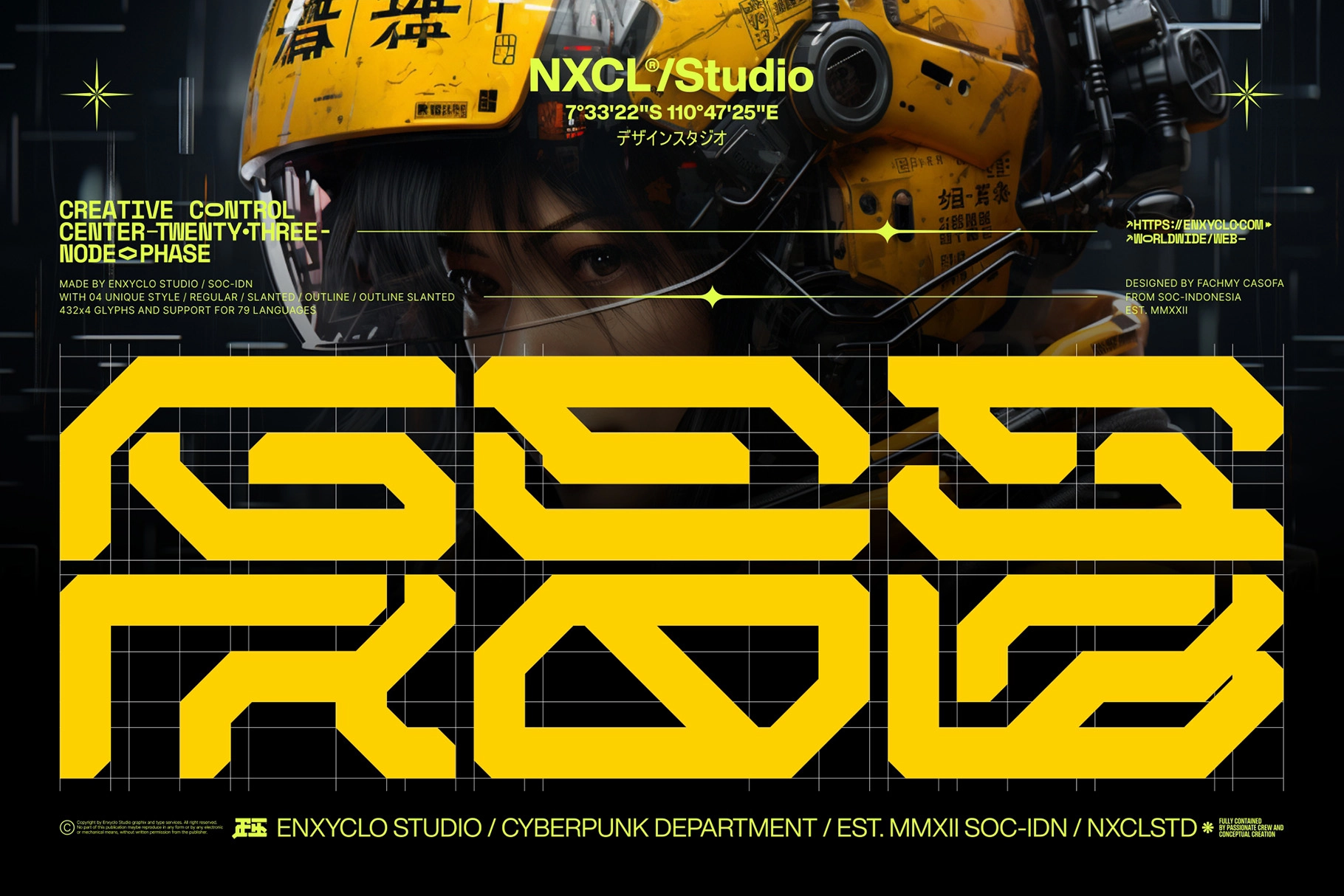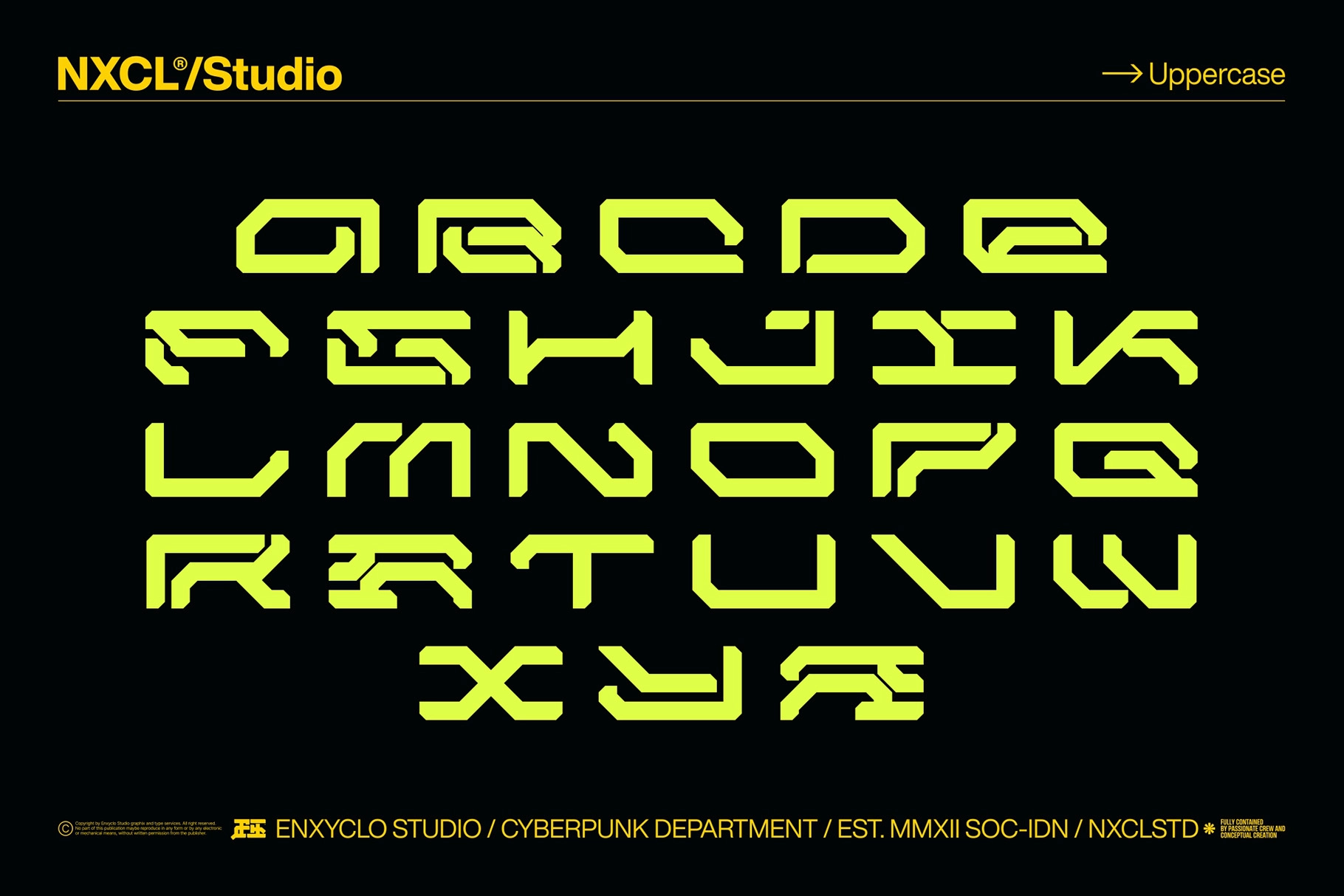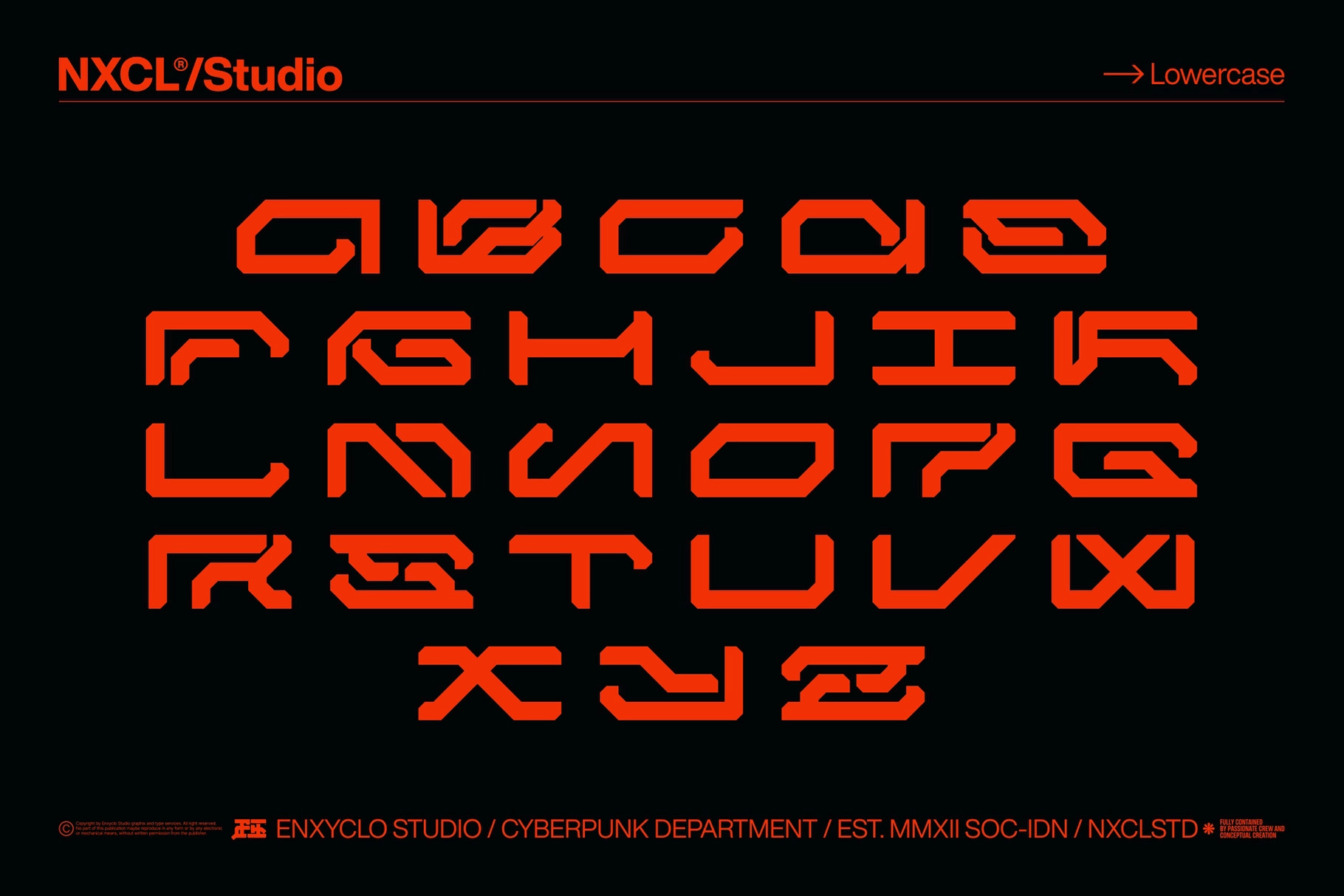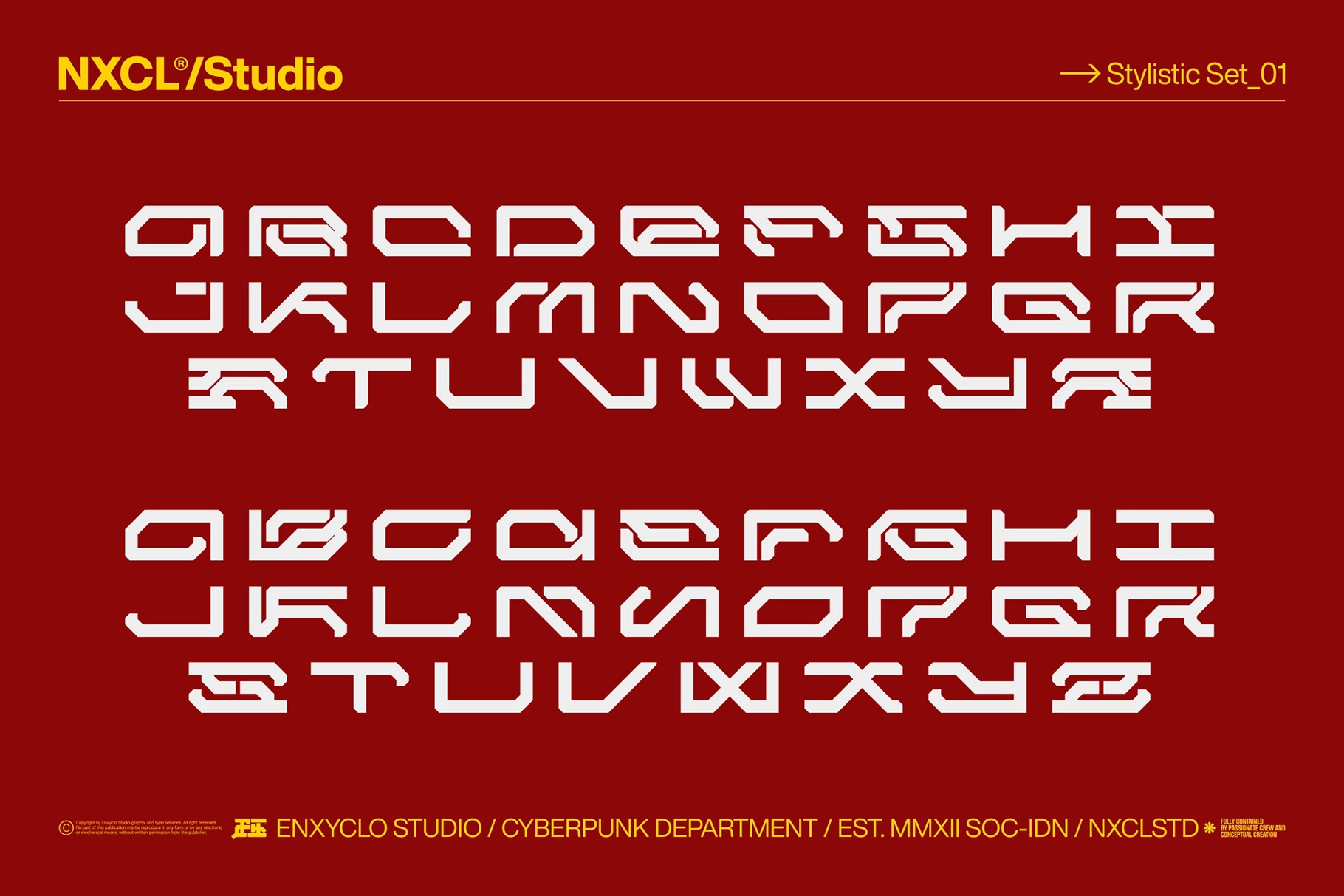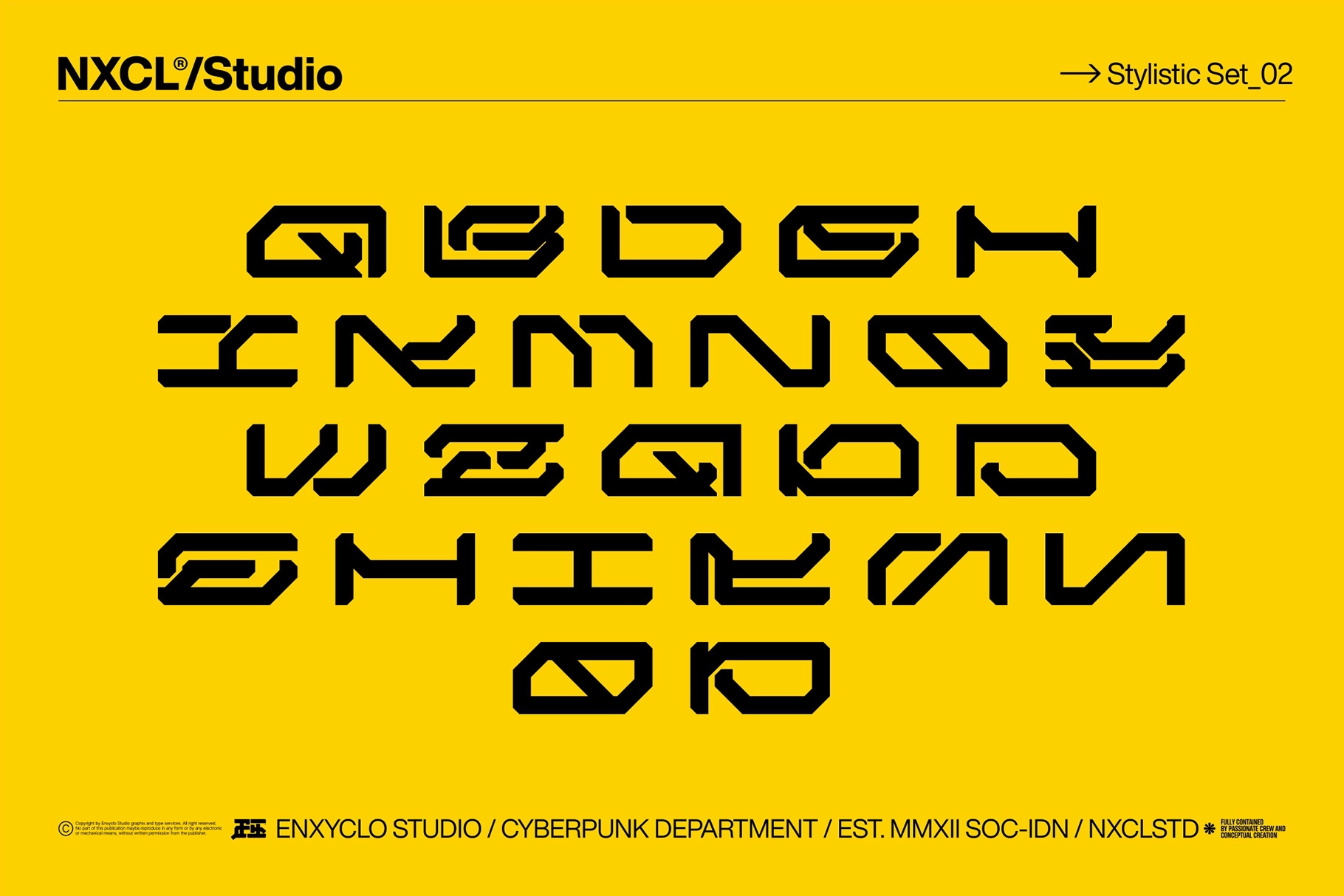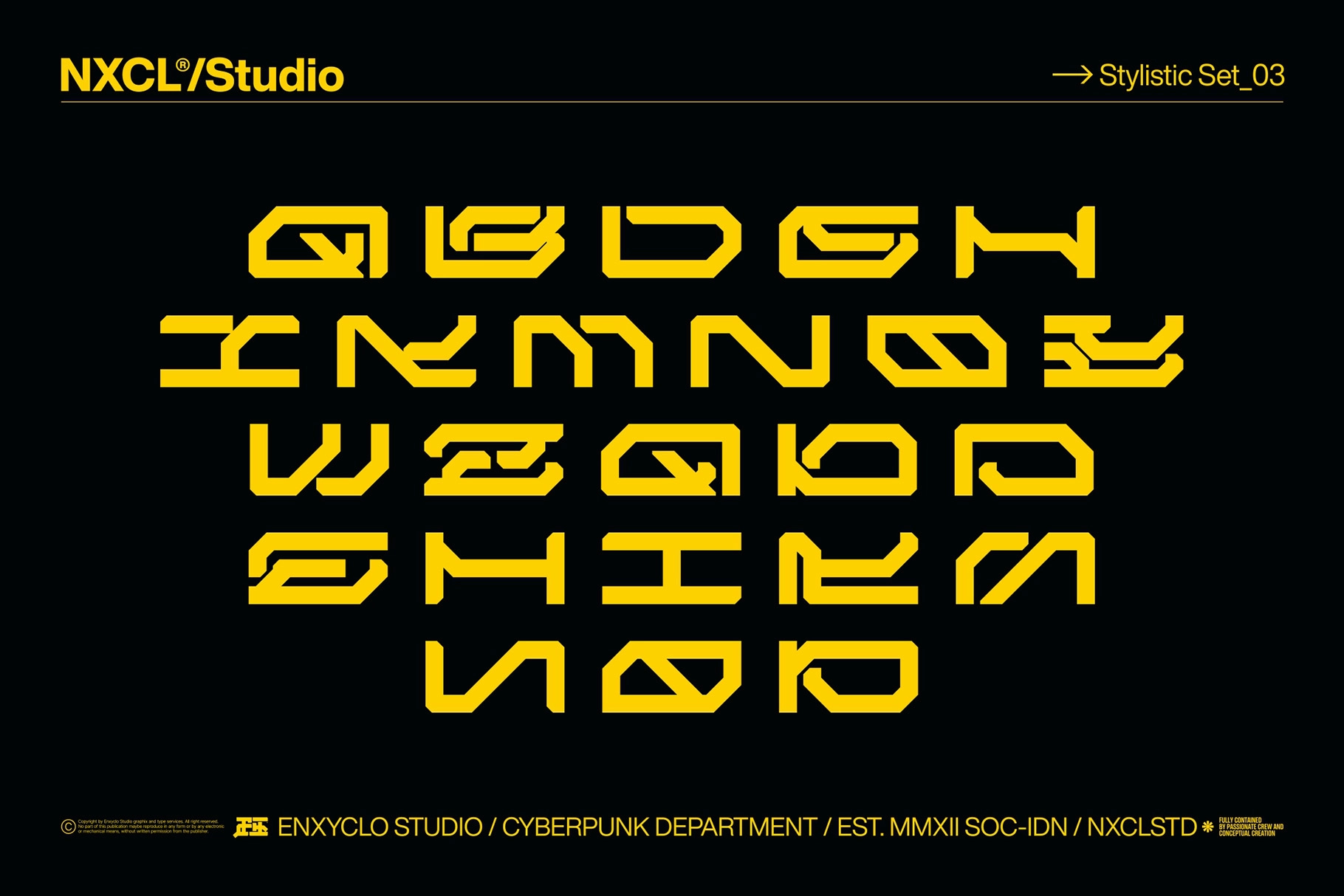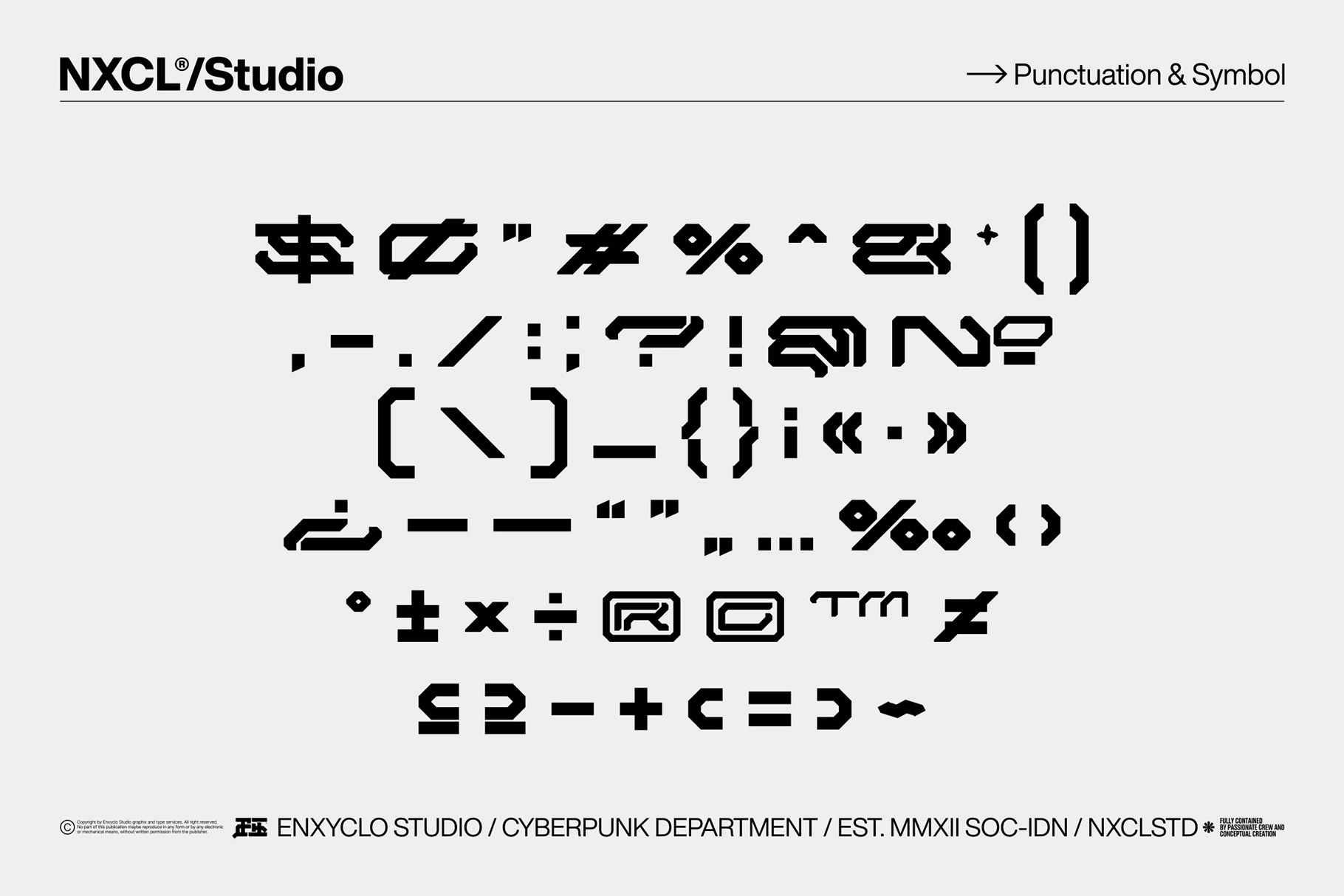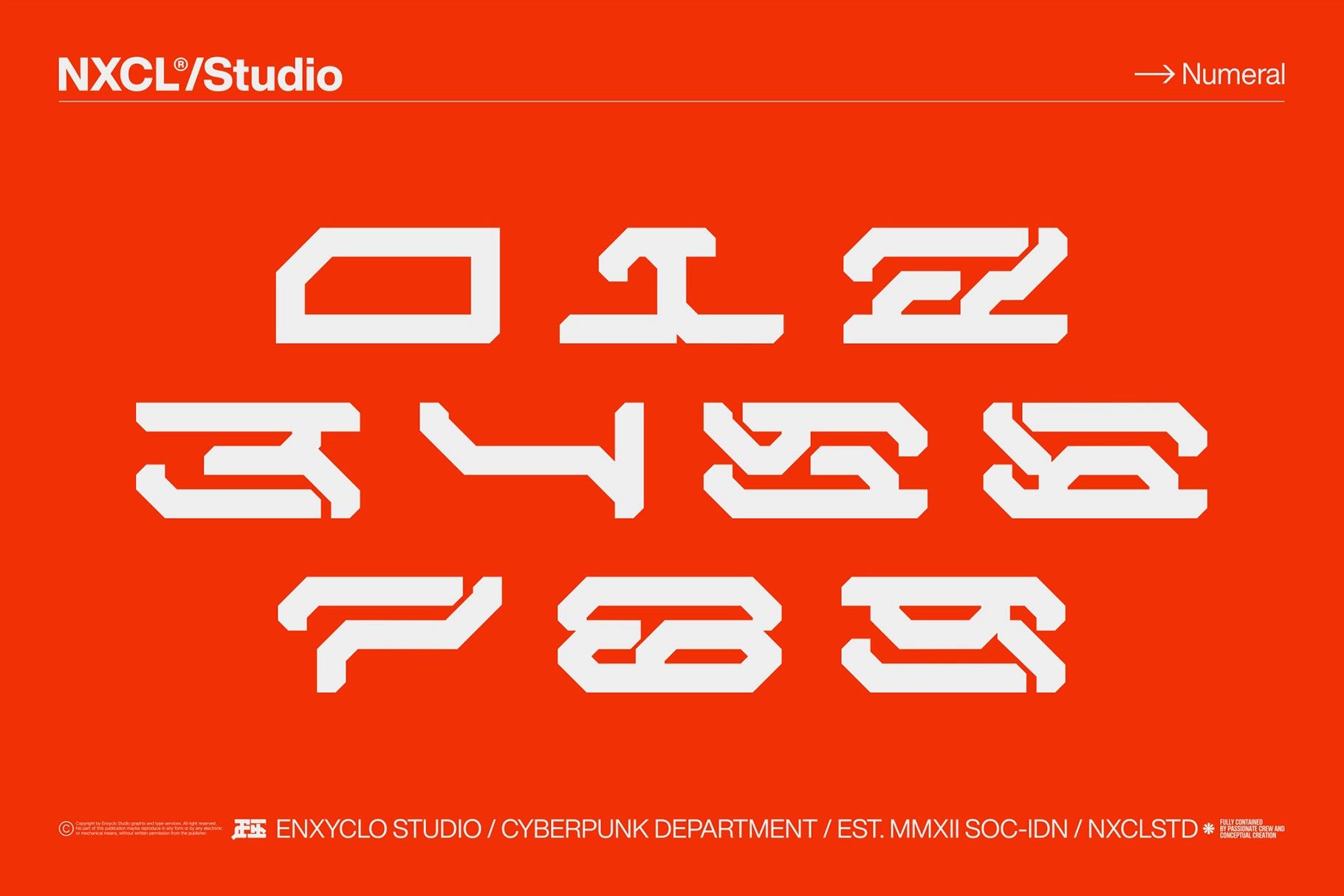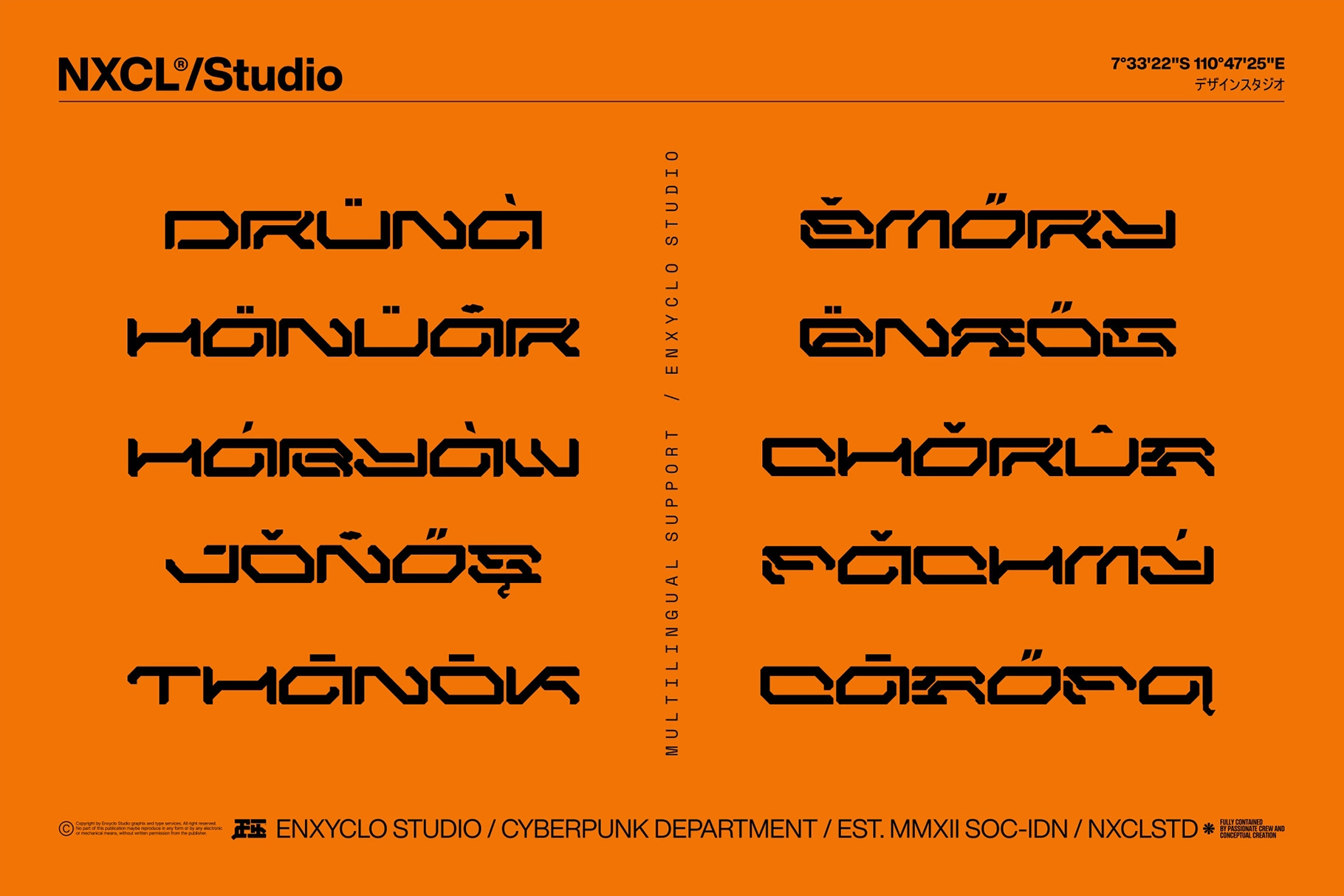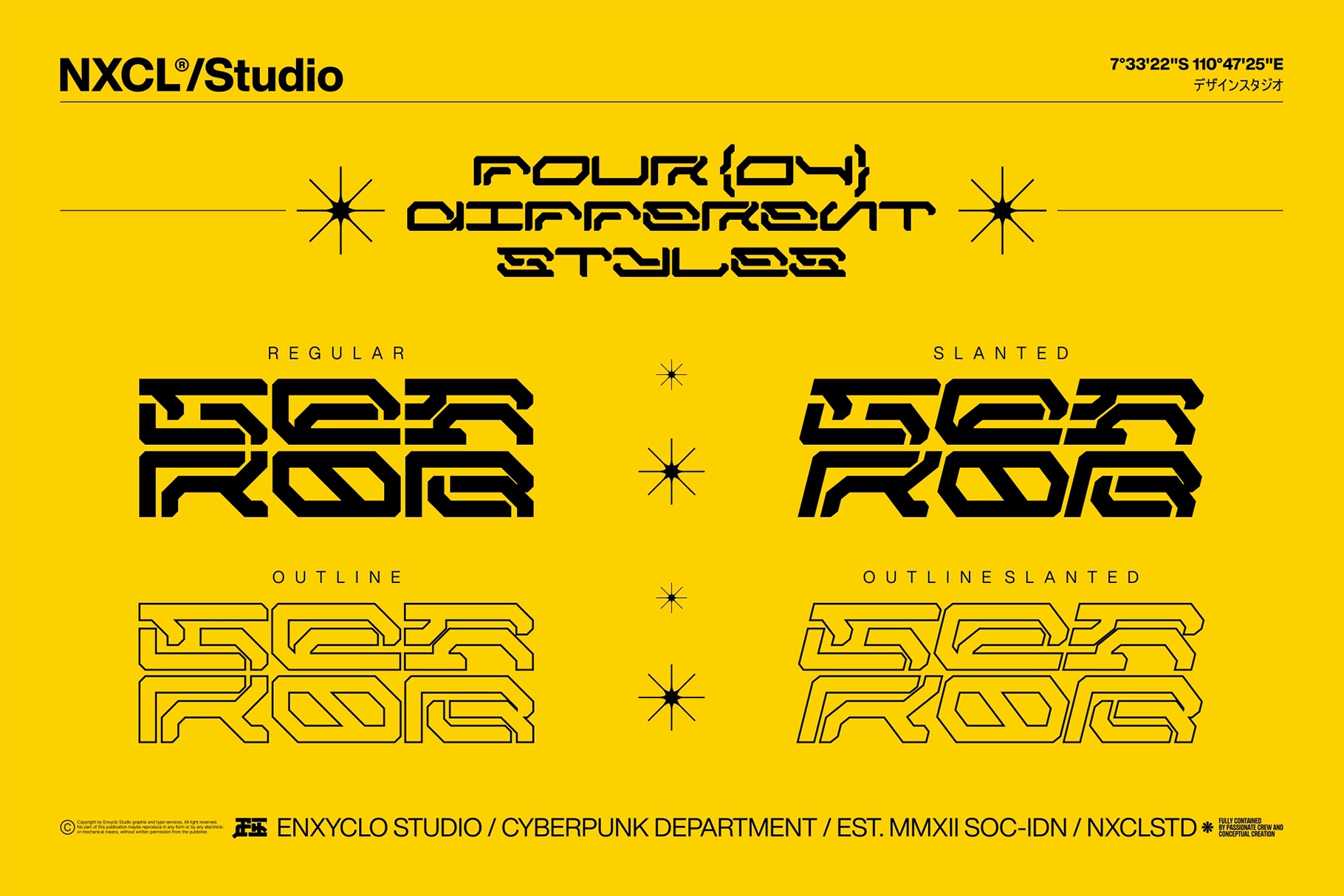
GESROB - Cyberpunk Techno Display Font
NCL GESROB presents a sharp, angular construction rooted in cyberpunk cinema and mecha anime, echoing the visual language of late-90s sci-fi game interfaces. Its geometric cuts and segmented forms suit tech branding, gaming titles, esports identities, futuristic posters, UI headlines, and experimental album covers, while its alternate styles extend naturally into motion graphics and digital editorial layouts.
• 4 font styles: Regular, Slanted, Outline, Outline Slanted
• 432 glyphs per style
• Uppercase & lowercase characters
• Stylistic sets